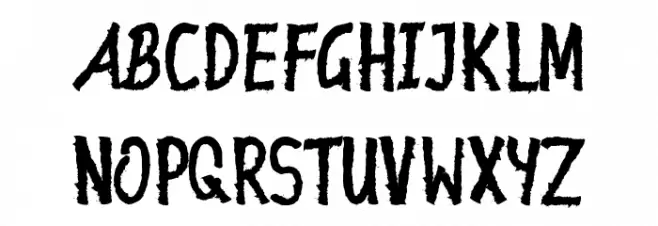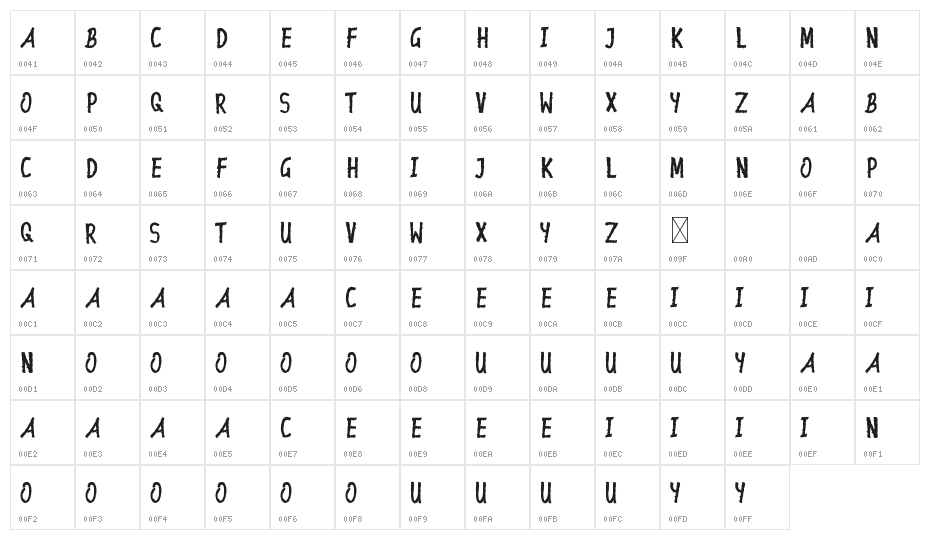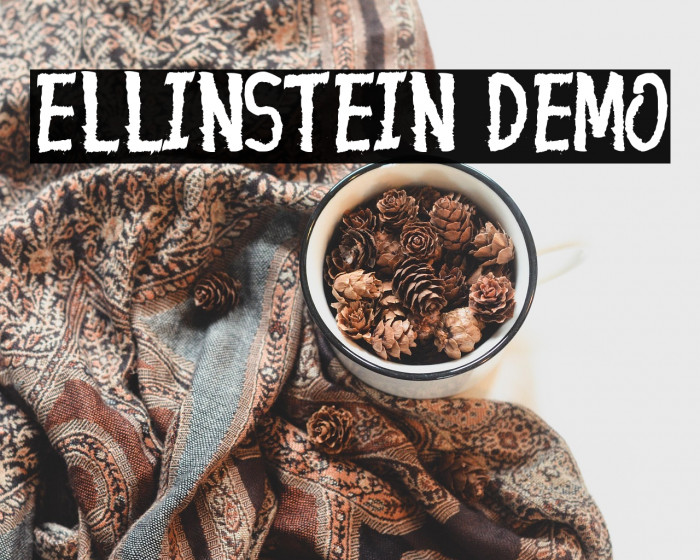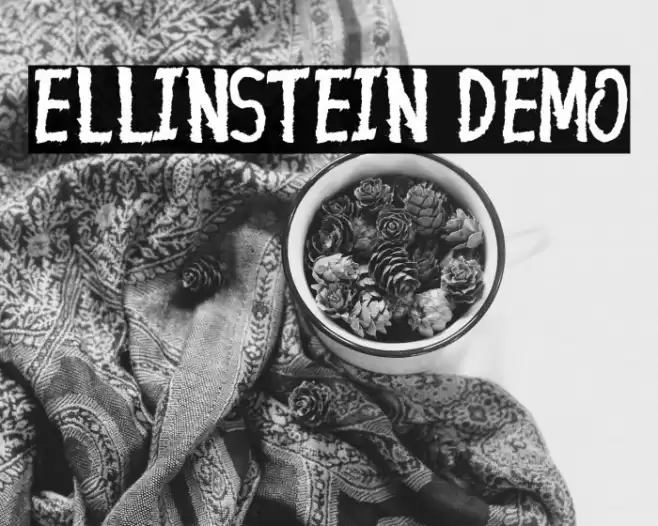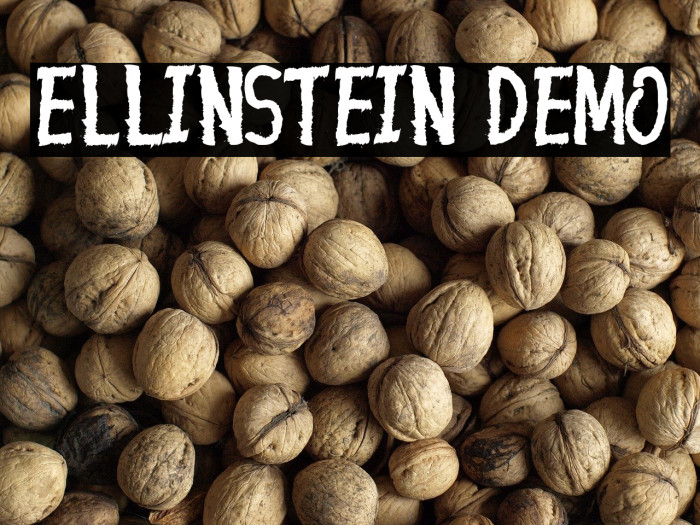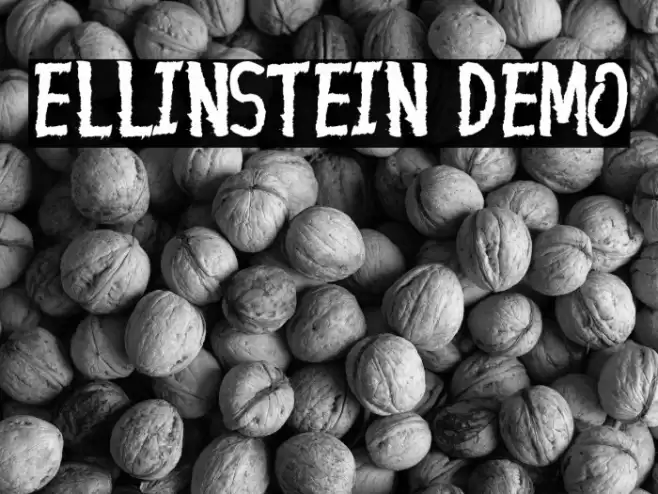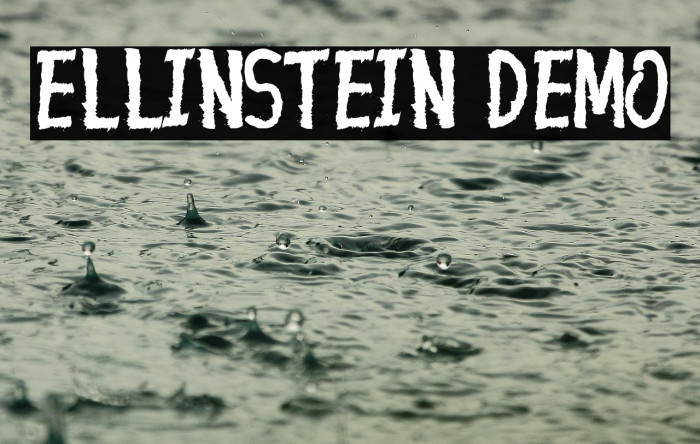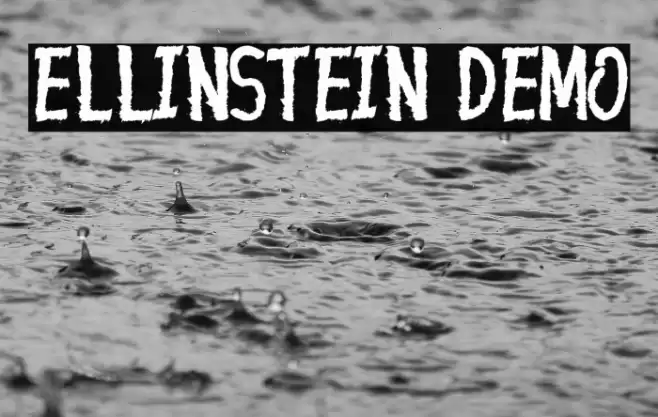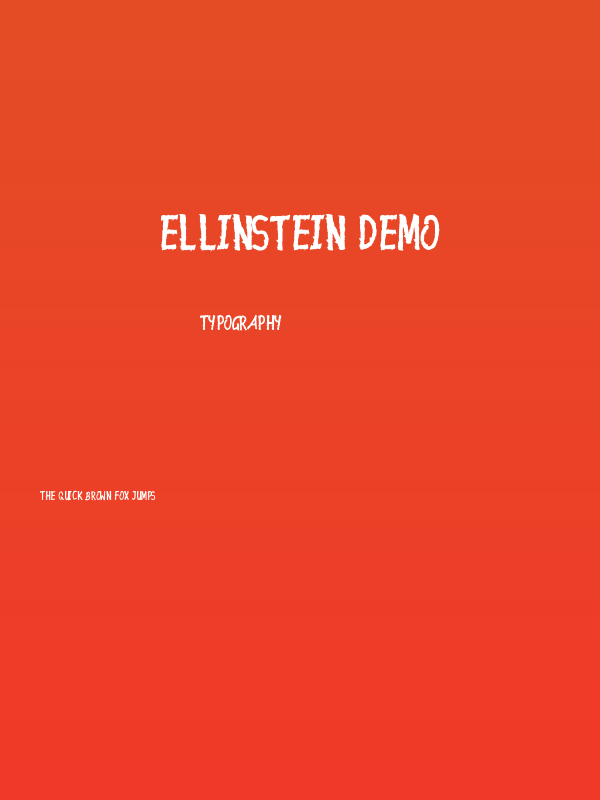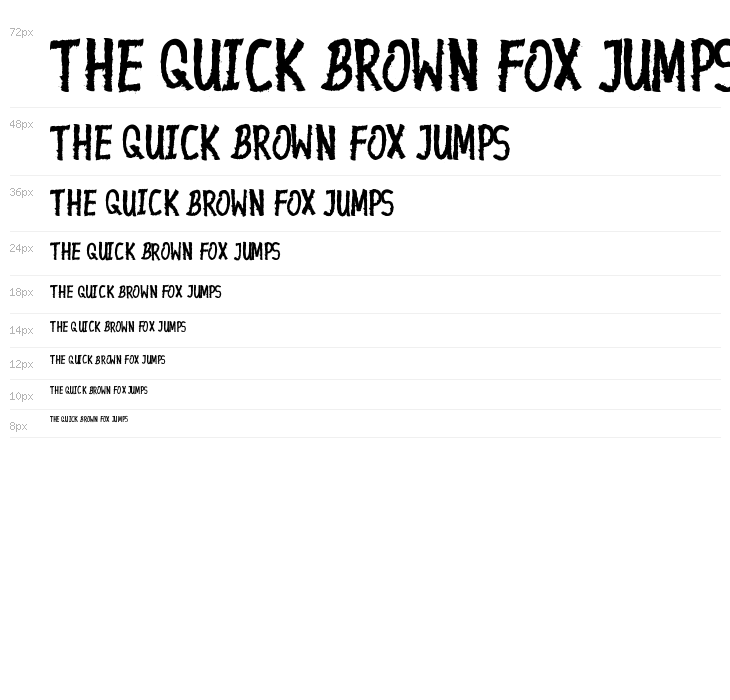
Ellinstein Demo Font
Ellinstein Demo Description
This font features a bold and expressive style, characterized by its rough, textured edges that give it a hand-drawn appearance. The uppercase letters are consistent in height, with a slightly uneven baseline that adds to its dynamic and energetic feel. The strokes are thick and irregular, contributing to a sense of movement and spontaneity. This font is ideal for projects that require a bold statement or an artistic touch, such as posters, album covers, or creative branding. Its unique style captures attention and conveys a sense of creativity and individuality.
| Proposed Projects | Posters, album covers, creative branding, artistic projects. |